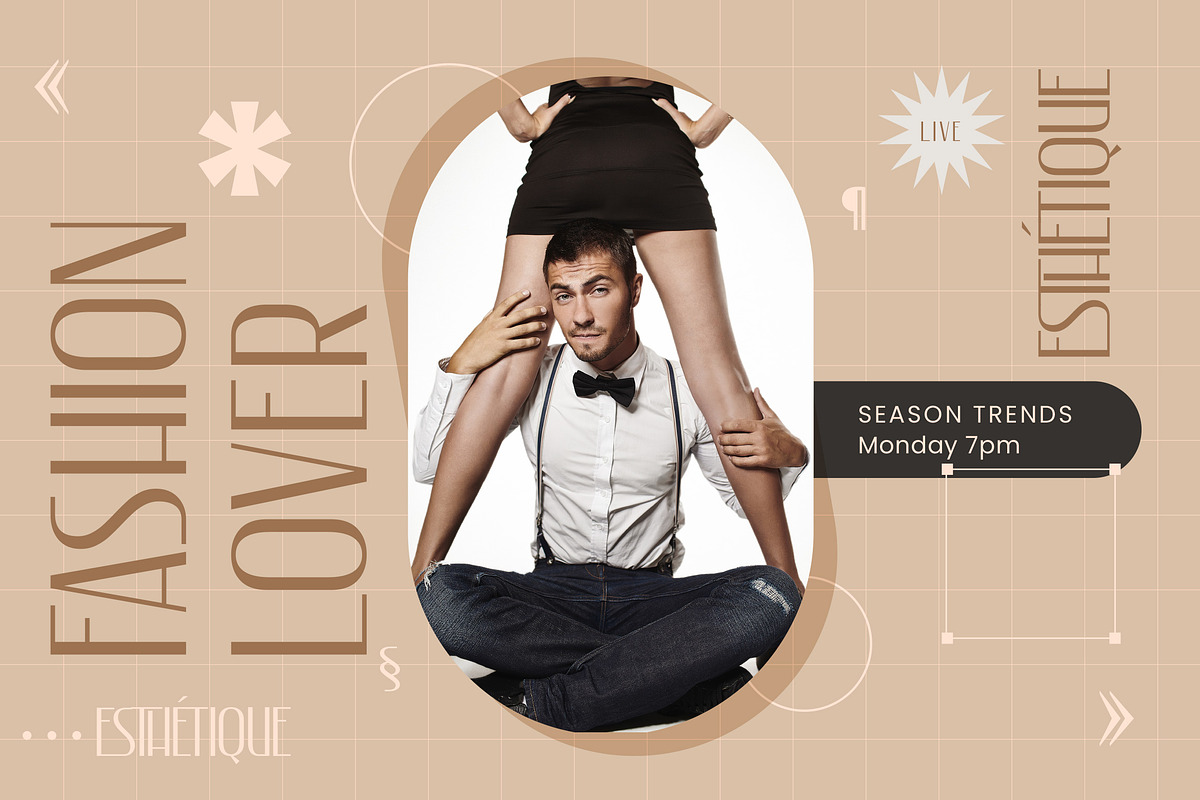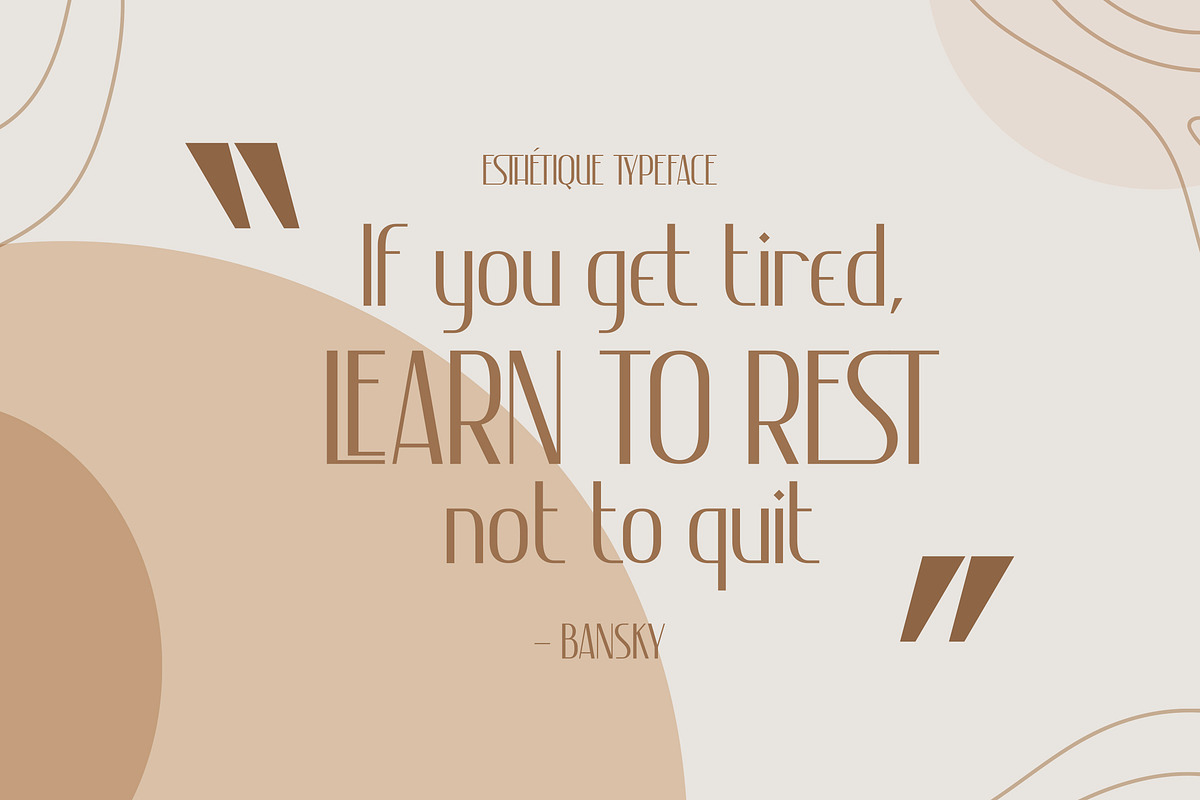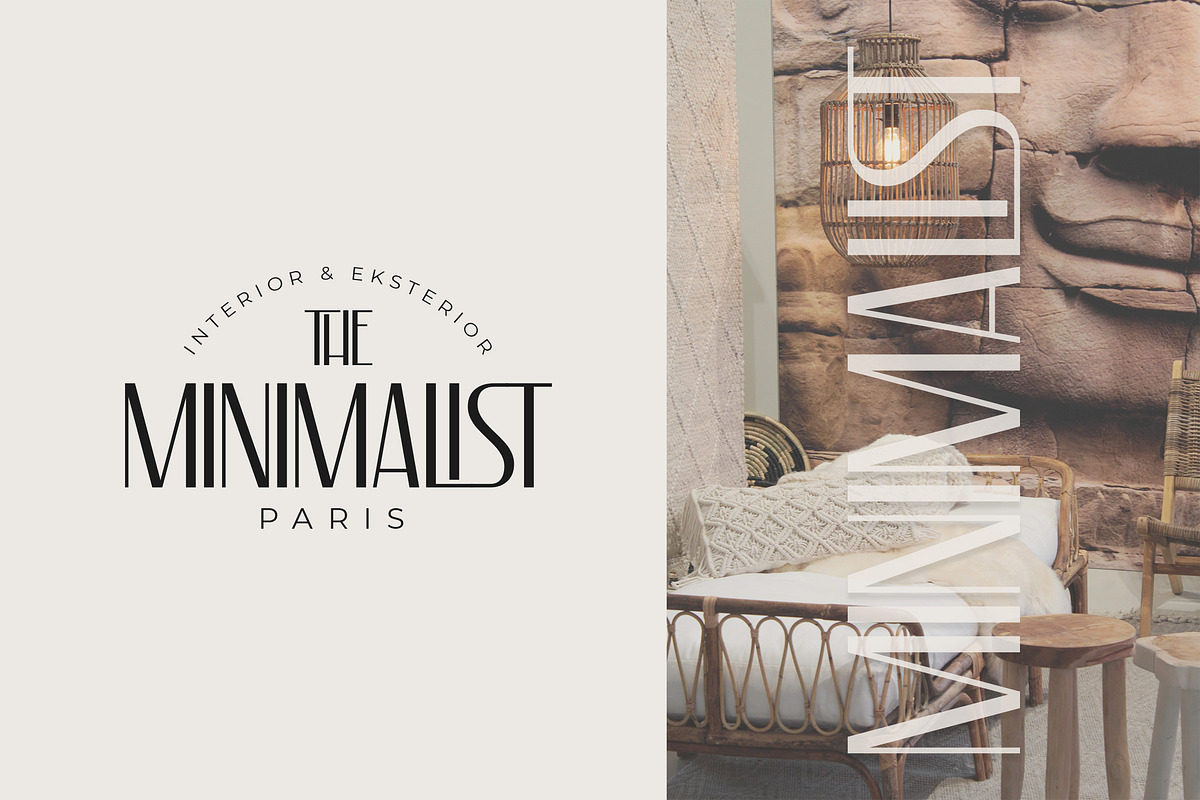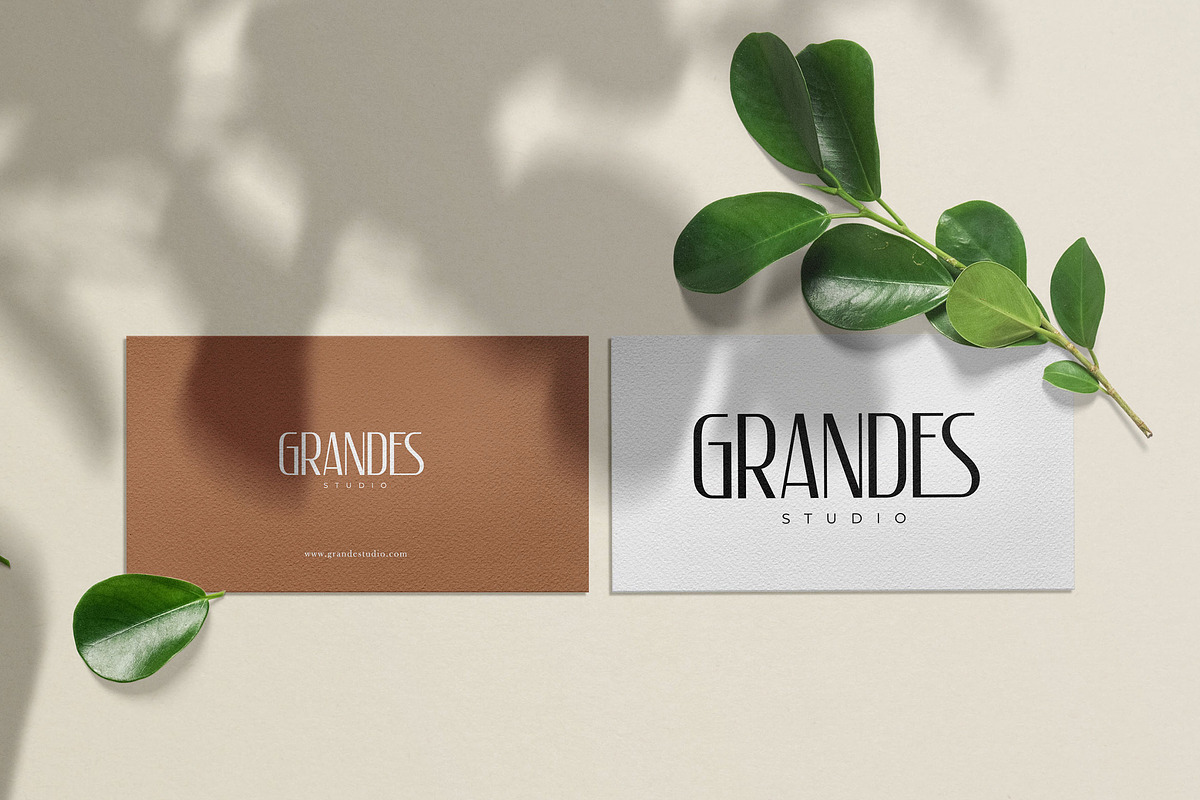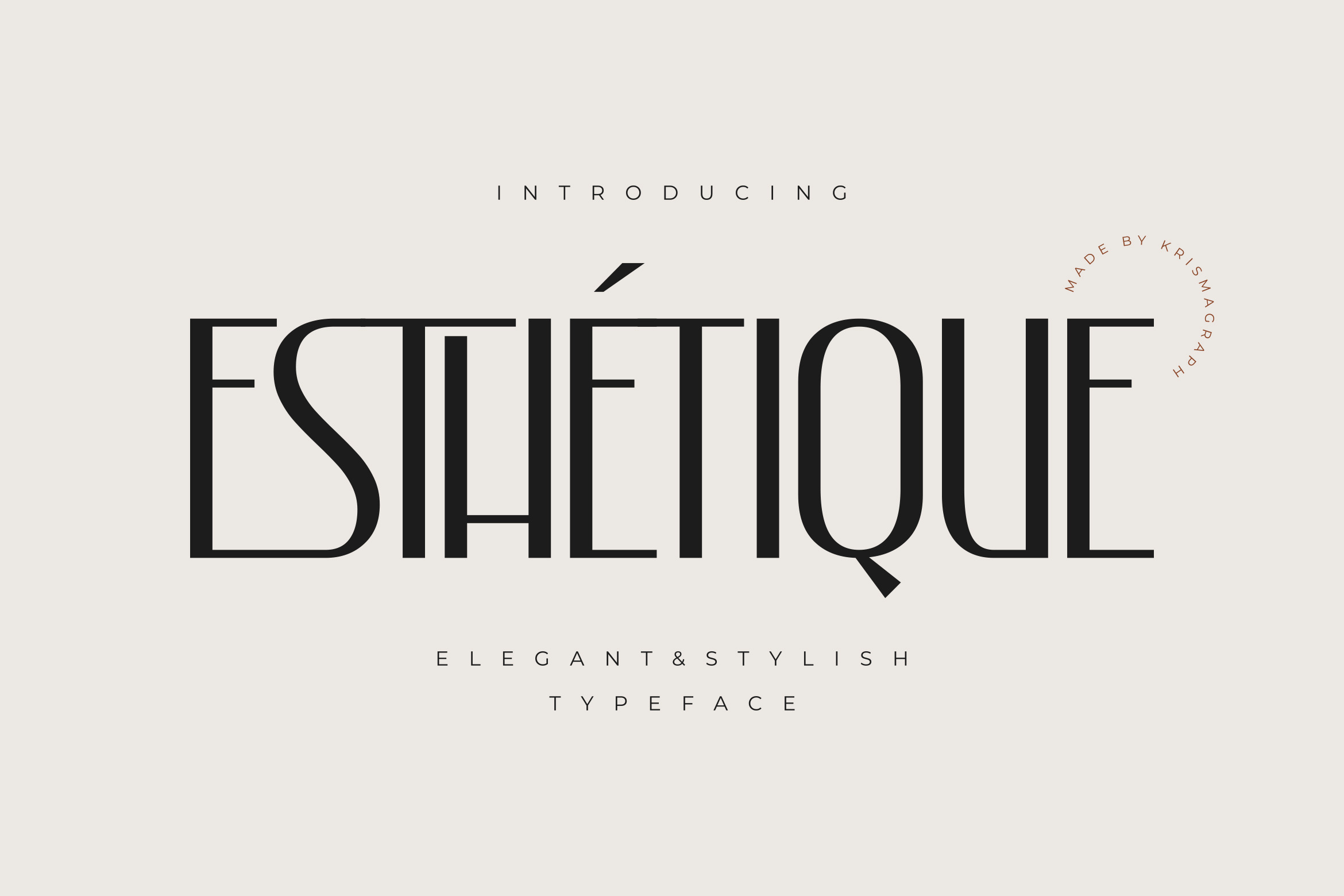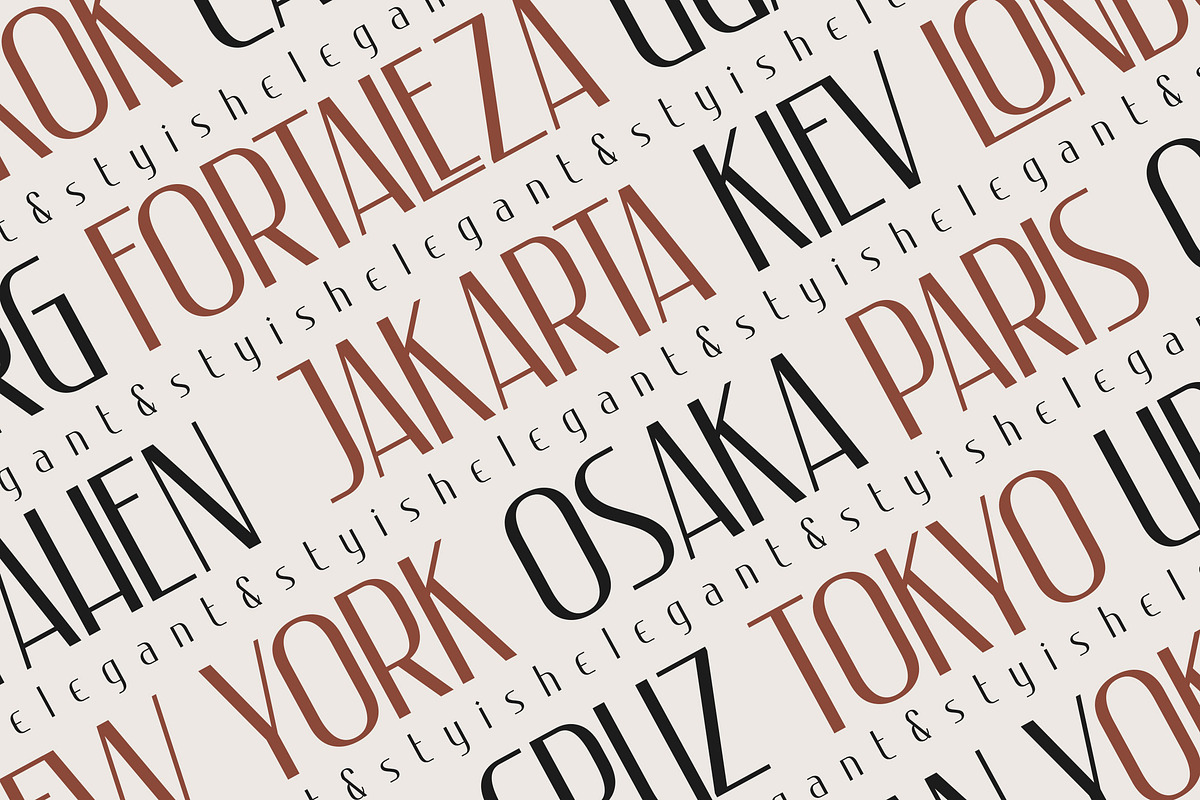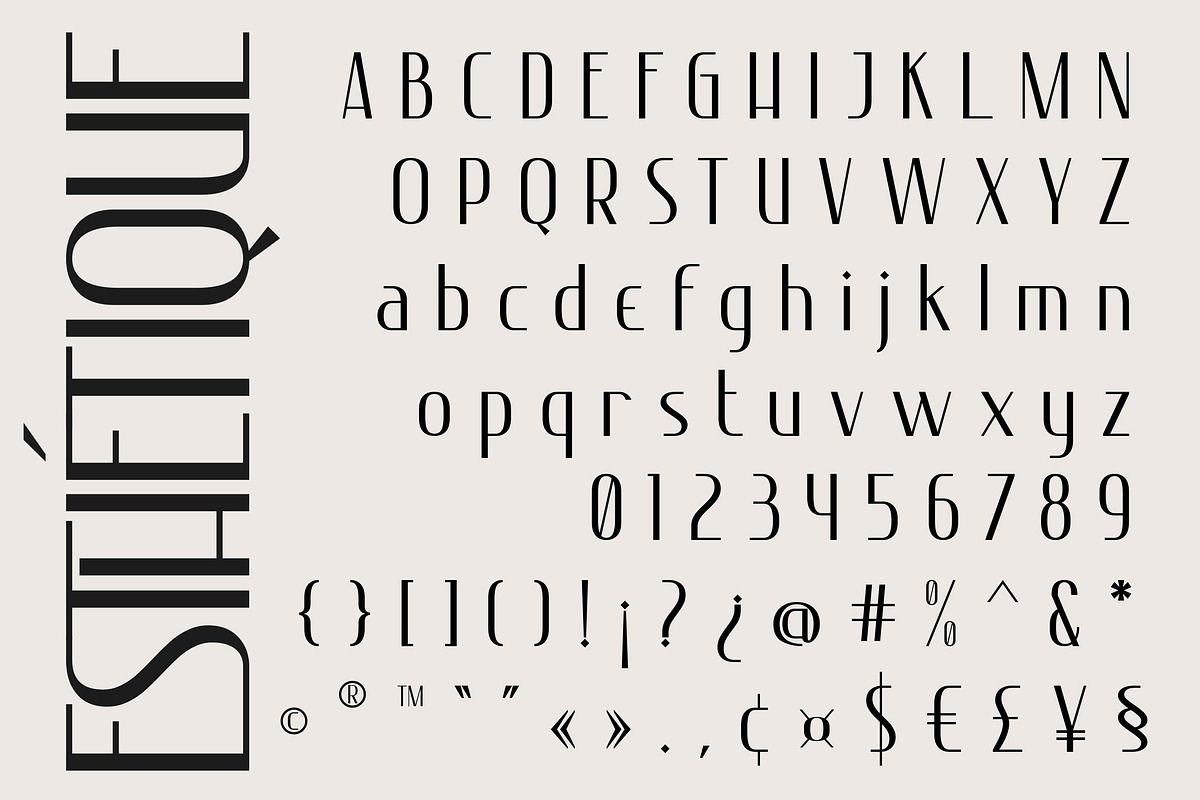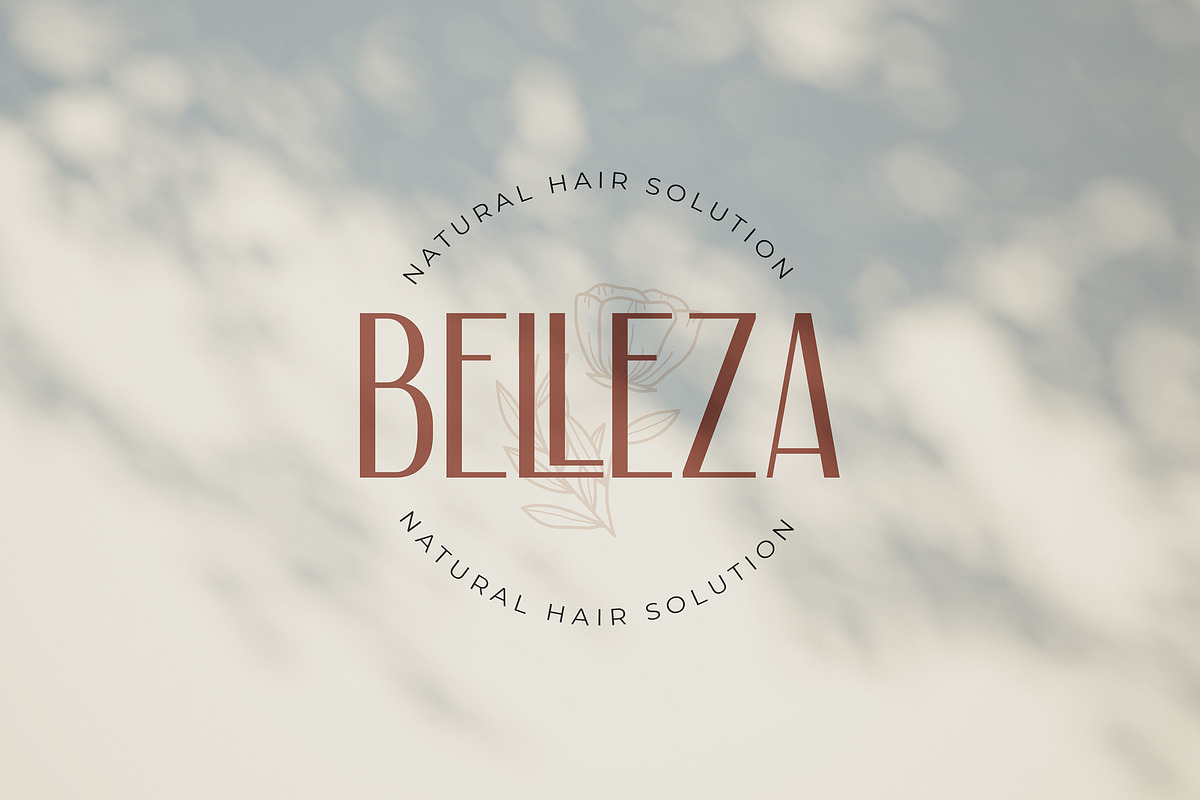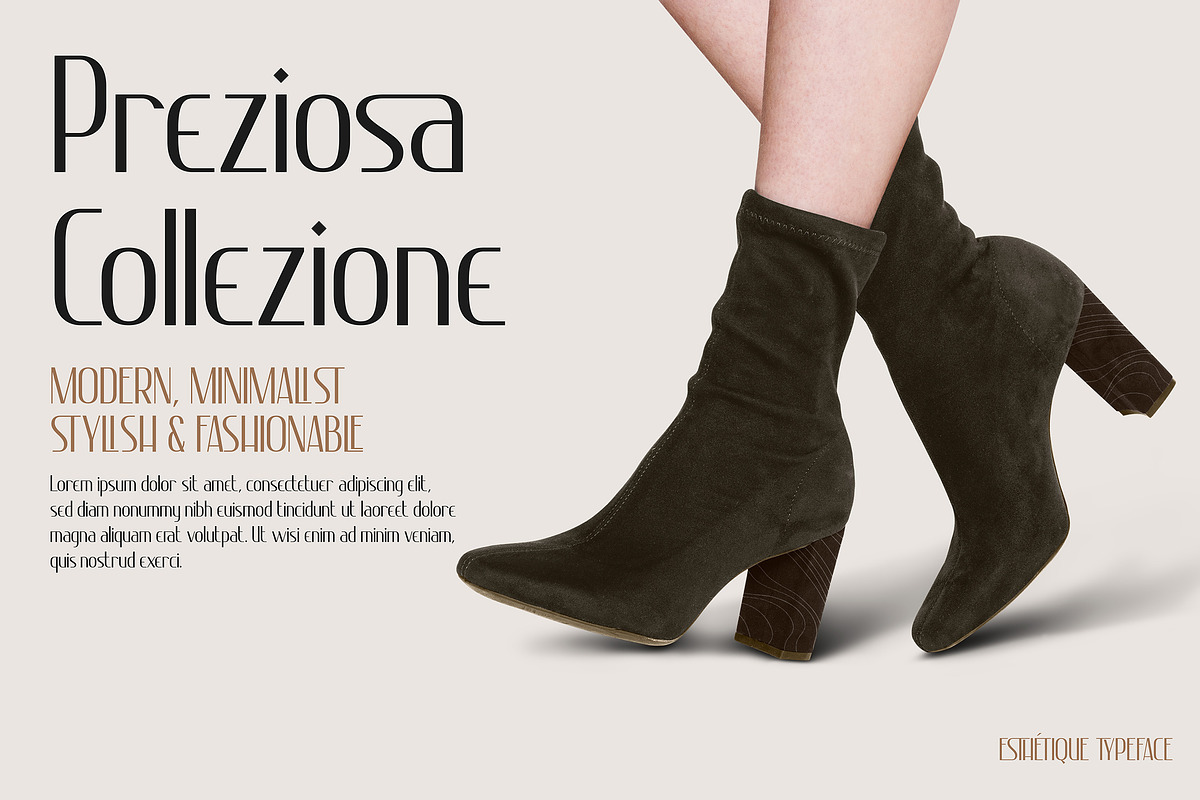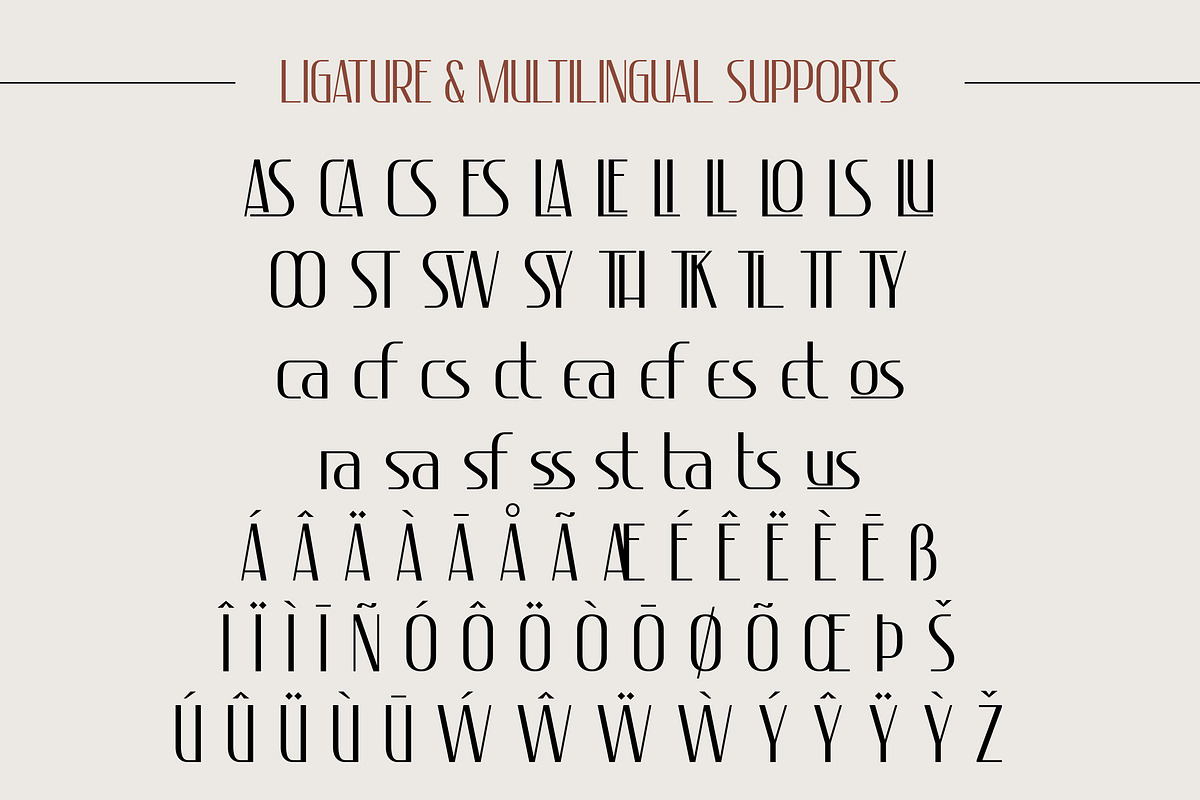
Esthetique - Elegant & Stylish Font
Introducing our new “Eshetique”, Elegant & Stylish Typeface, Typeface with Unique, Classy and Stylish. Eshetique Typeface is a Elegant & Stylish Typeface – This font is modern and classy and works great for logos, magazine, social media. Already matched up and ready to be used together for your next design! For those of you who are needing a touch of elegant, stylish, classy, chic and modernity for your designs, this font was created for you!
Eshetique Features :
- Multilanguage
Fonts include multilingual support